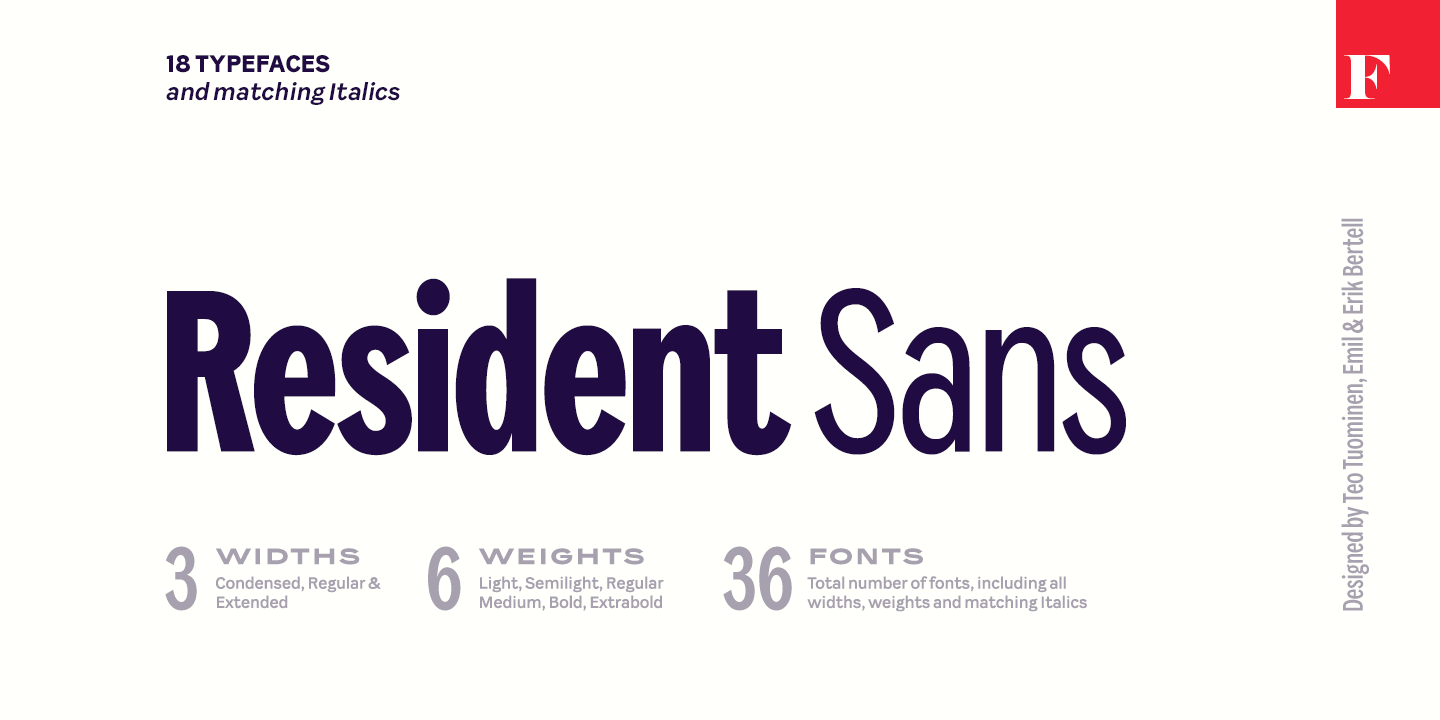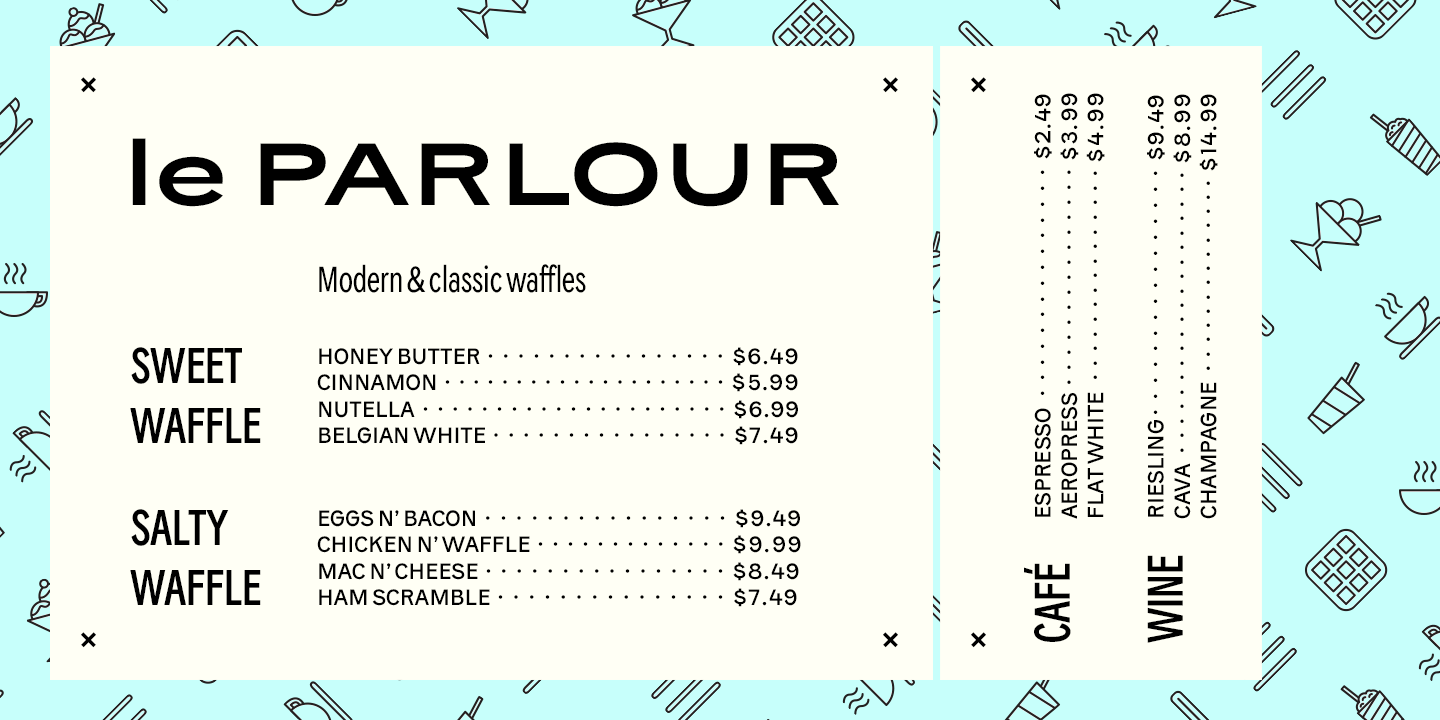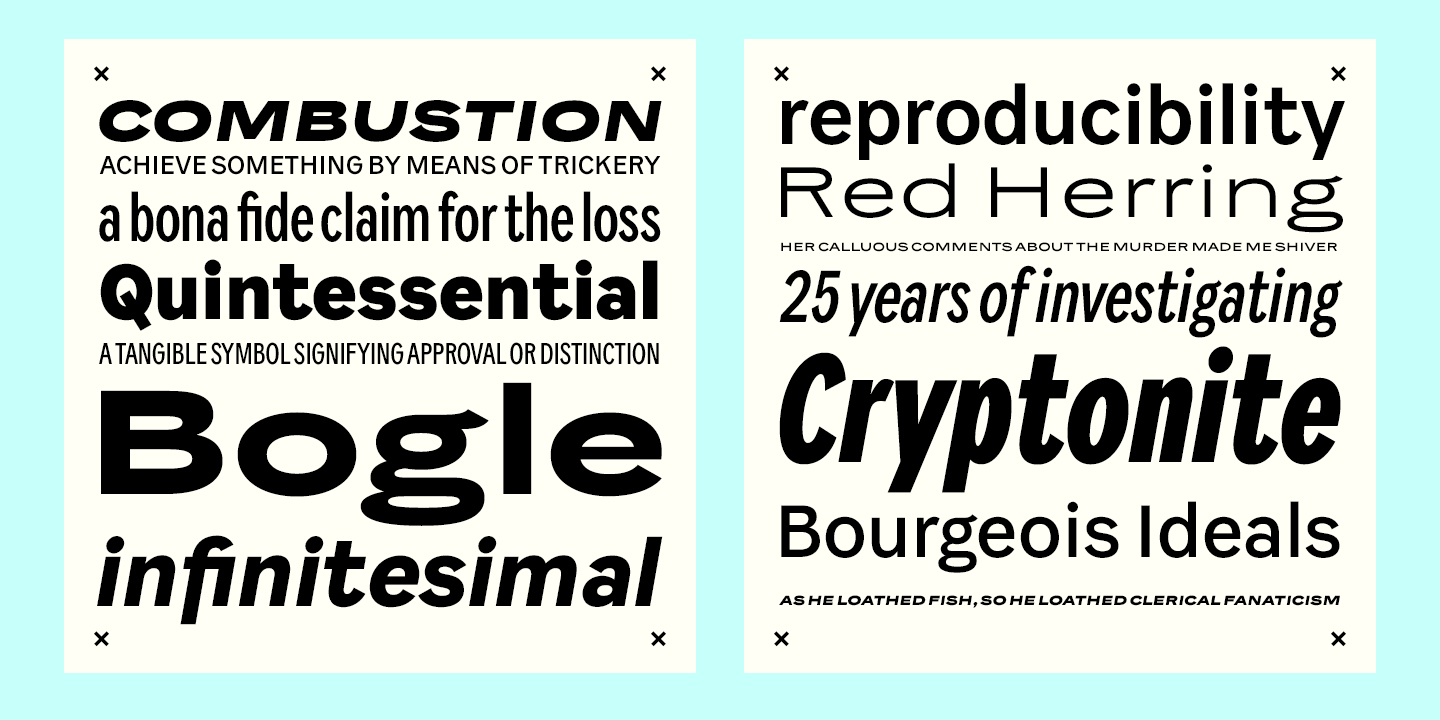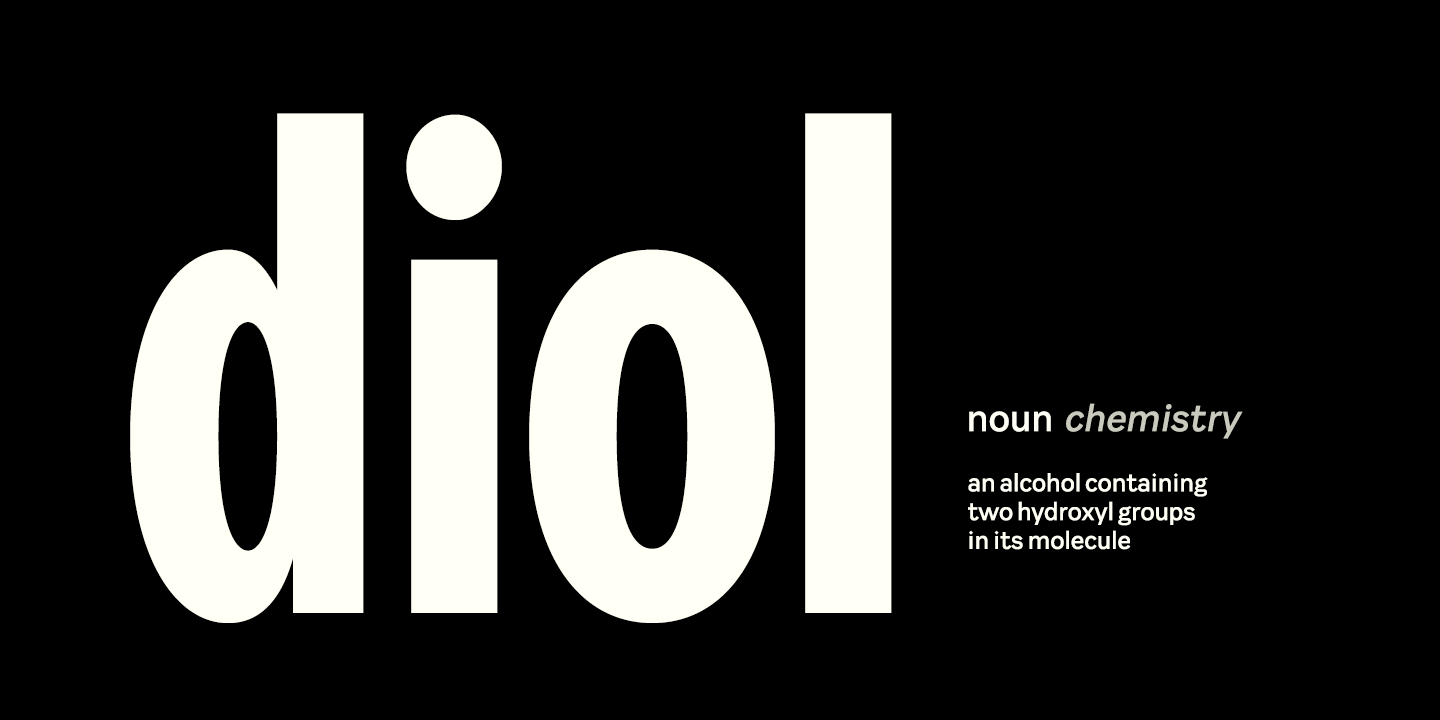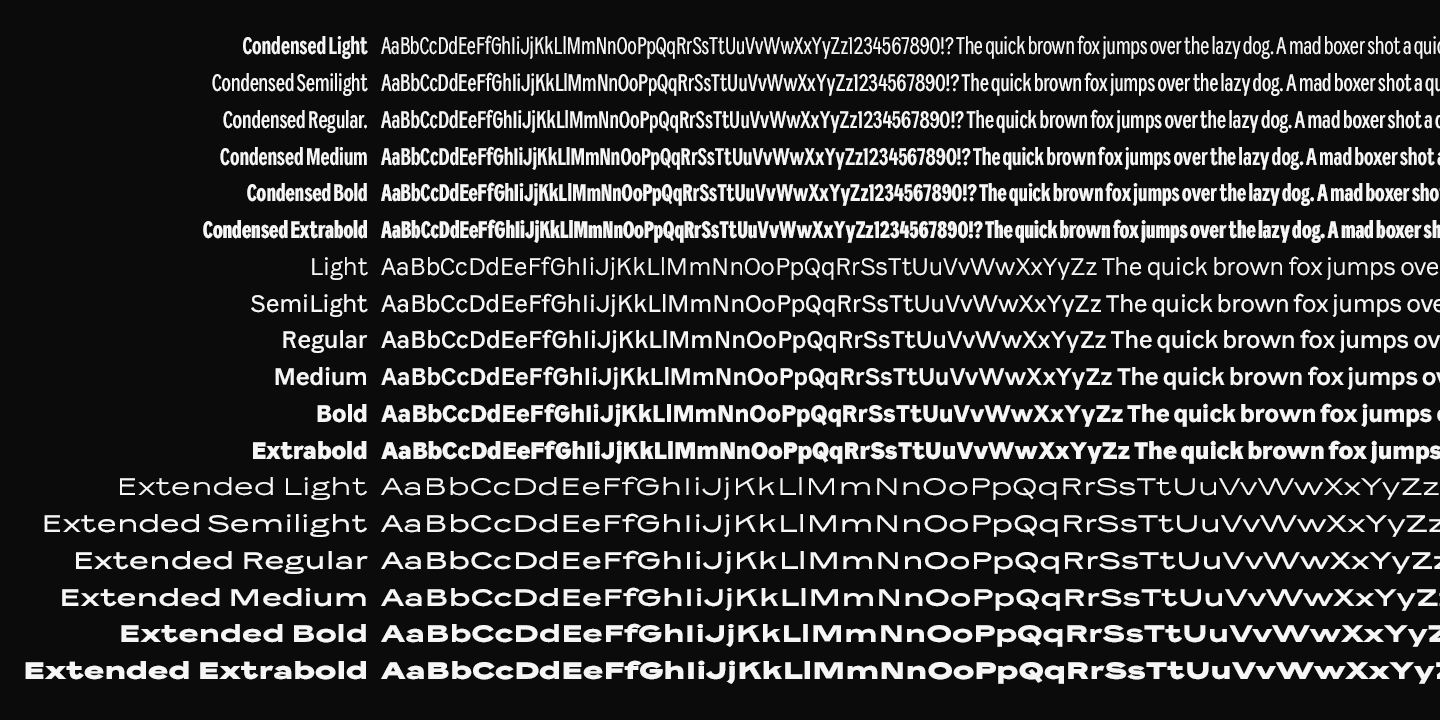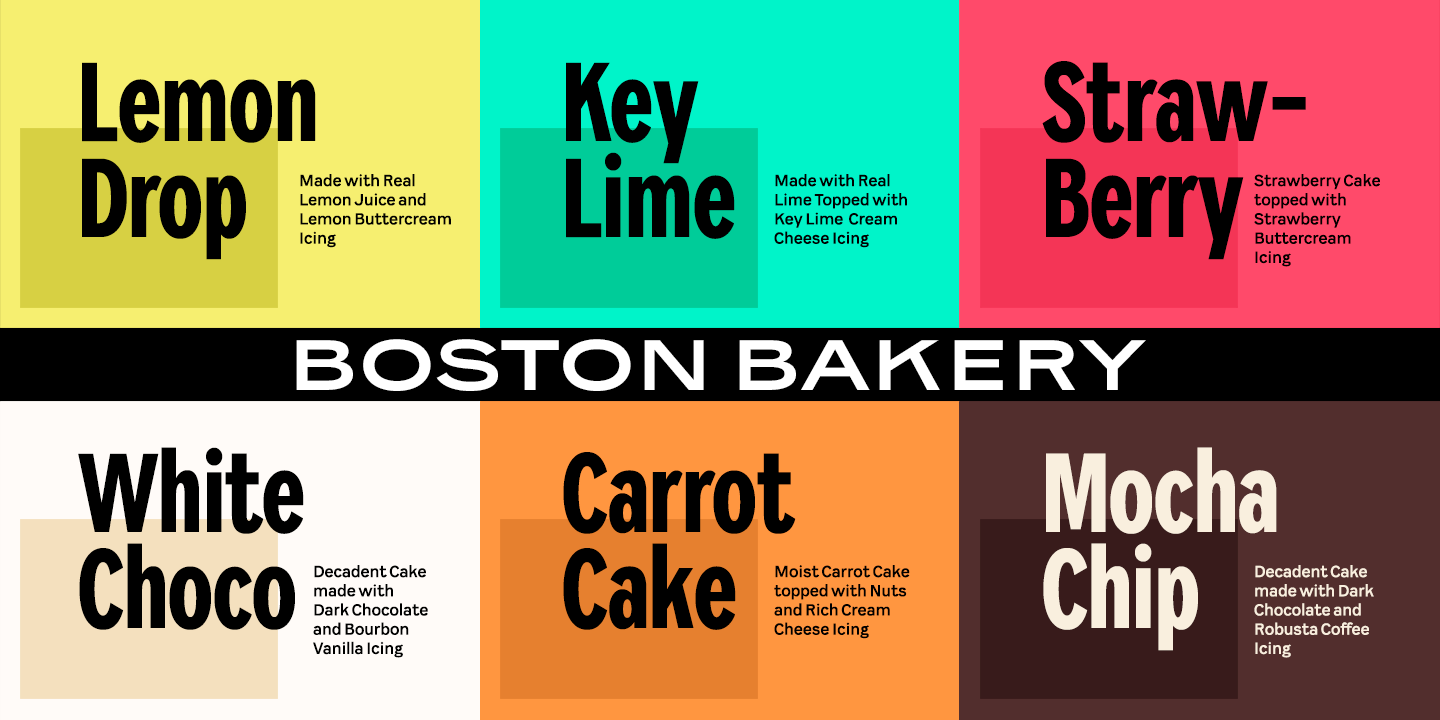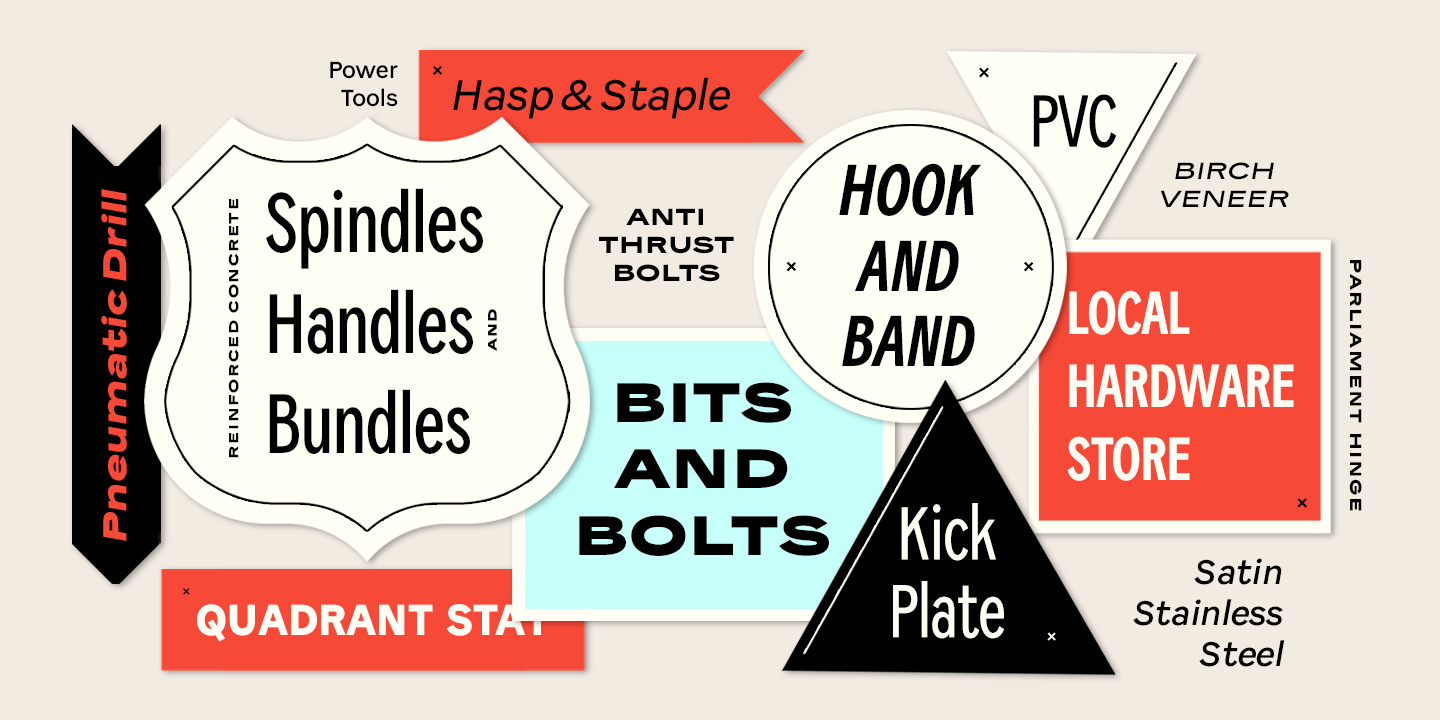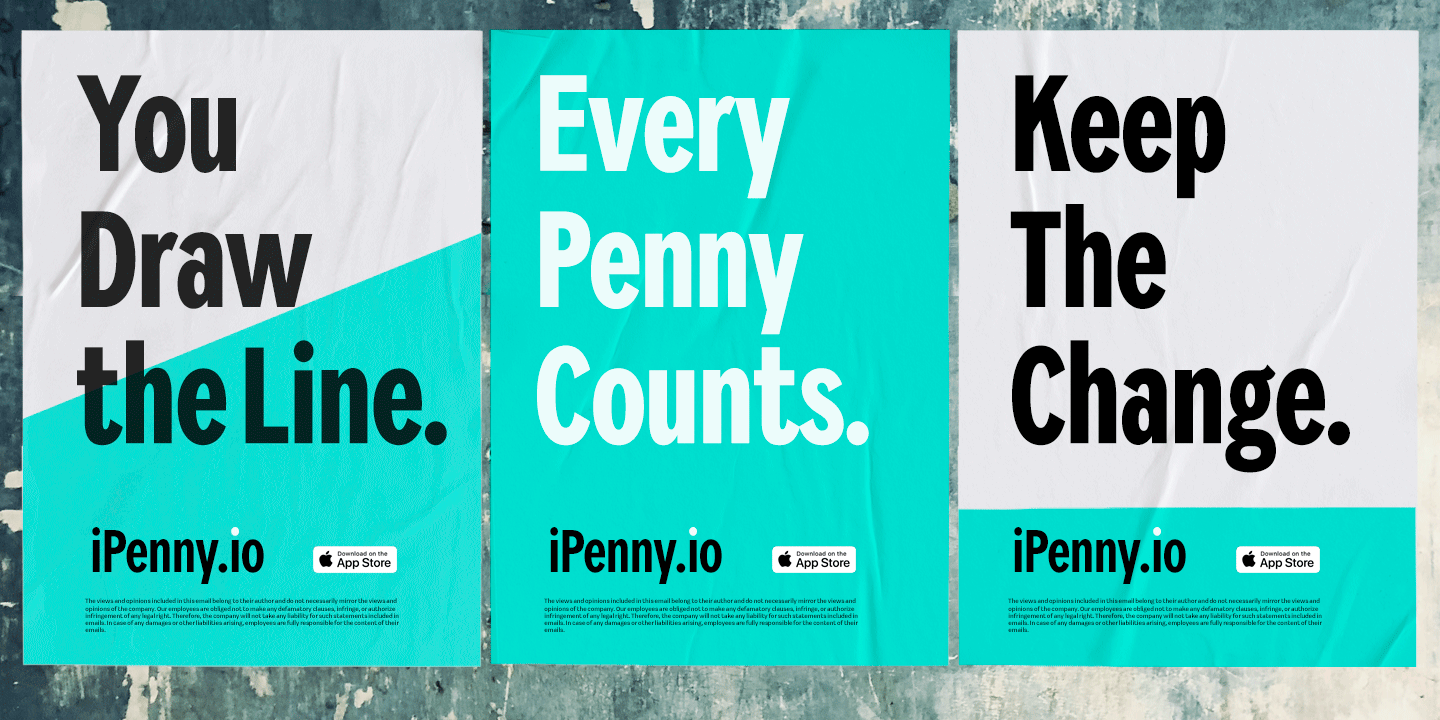
Resident
Do you need a true, reliable workhorse font family? One that can cope with the most diverse typographic challenges?
Like a good citizen, Resident Sans is flexible, resilient, and adaptable. It carries out everyday chores without hesitation and, if necessary, stretches to typographic feats – from easy-to-read body copy to impressive titles and small details.
There are many types of Residents: members can be found from narrow and slender to thick and wide individuals.
Even though design-wise Resident is universal, it has plenty of character and personality. In terms of its characteristics, the letter family meets modern requirements: there are numerous number styles and alternative versions of some characters are available.